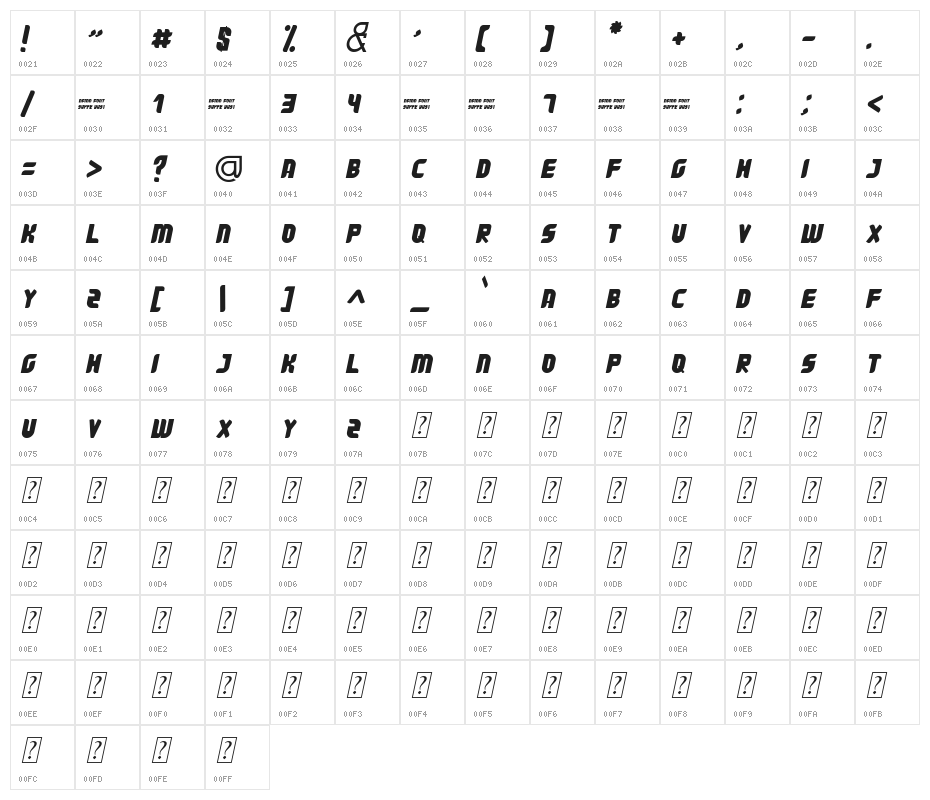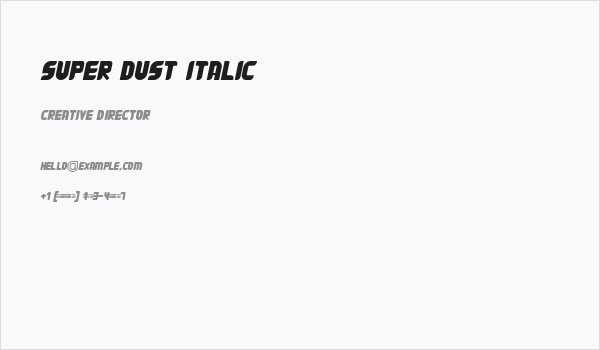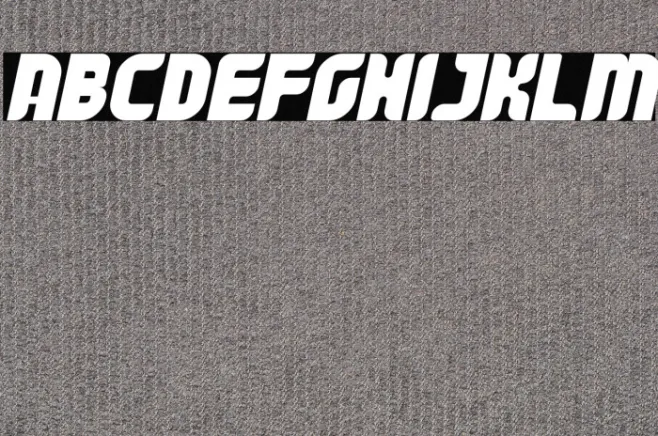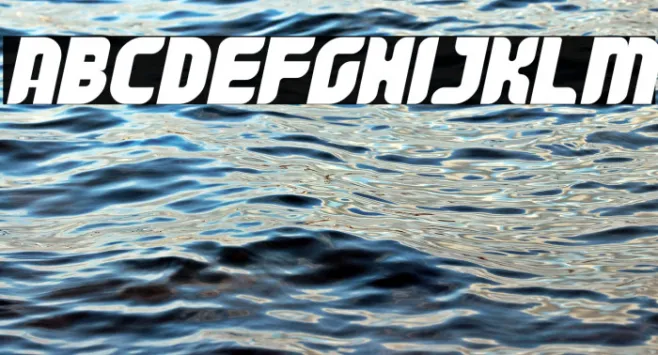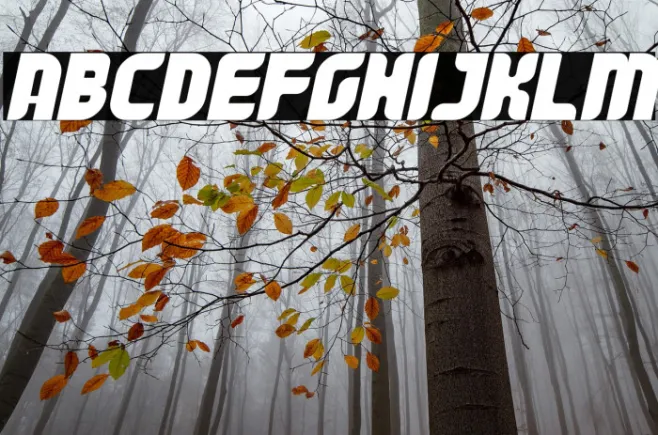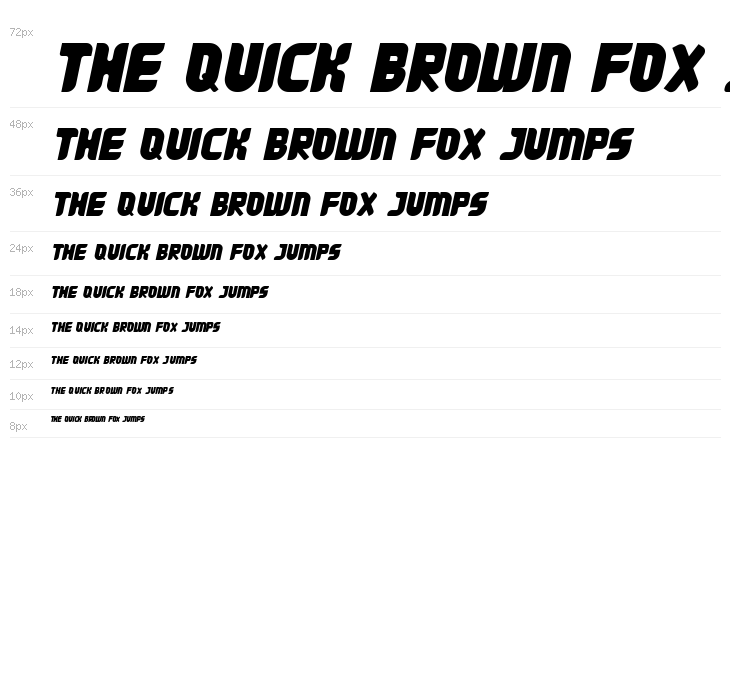
Super Dust Italic Font
Super Dust Italic Description
This font features a bold and dynamic style with a strong italic slant, giving it a sense of motion and energy. The characters are thick and robust, with a slightly condensed width that enhances its compact appearance. The strokes are consistent in weight, providing a uniform look across all characters. The font includes both uppercase and lowercase letters, numerals, and a variety of special characters, making it versatile for different design needs. Its boldness and slant make it particularly eye-catching, suitable for projects that require a strong visual impact.
| Proposed Projects | Ideal for sports branding, dynamic posters, and action-themed graphics. |